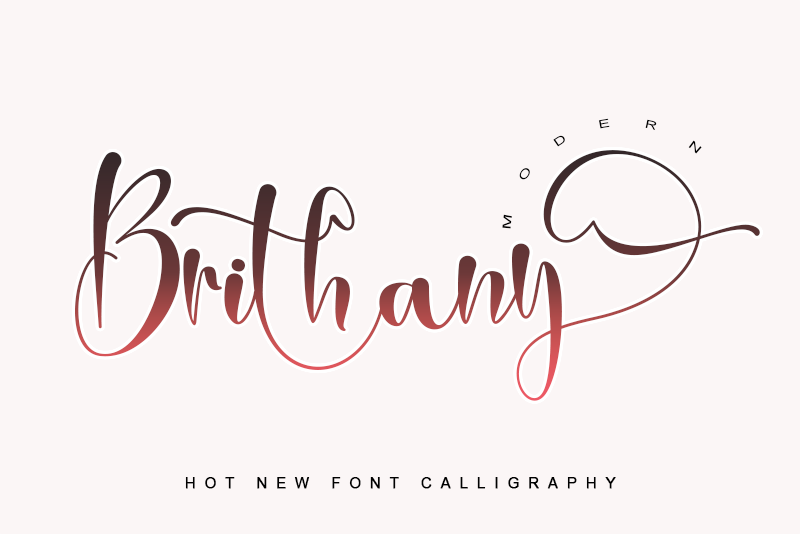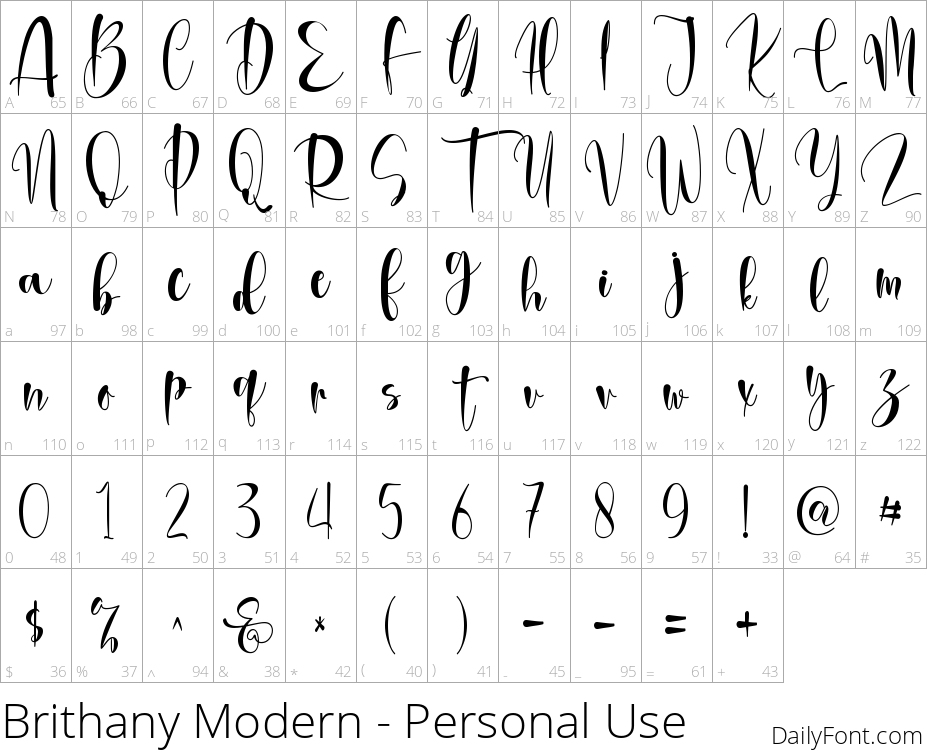
Brithany Modern
Discover the sophistication and refinement of Brithany, a premium font designed to add a touch of elegance to any design. Perfect for creating memorable logos, thank you cards, quotes, greeting cards, business cards, wedding invitations, and more, this stylish font is ideal for those seeking a handwritten look with a modern twist.
With its comprehensive feature set, Brithany Modern offers unparalleled customization options. Enjoy access to alternate letterforms, titling characters, swashes, and ligatures that allow you to tailor your design to fit your unique vision. The PUA-encoded glyphs and swashes are easily accessible, giving you the flexibility to create intricate designs with ease.
Whether you're a designer seeking a font for a high-end brand or an individual looking to add a personal touch to a special occasion, Brithany is sure to impress. Its versatile nature makes it suitable for various design applications, from formal events to everyday communication. With its sophisticated look and advanced features, this font is the perfect choice for anyone looking to elevate their designs with a dash of refinement and poise.